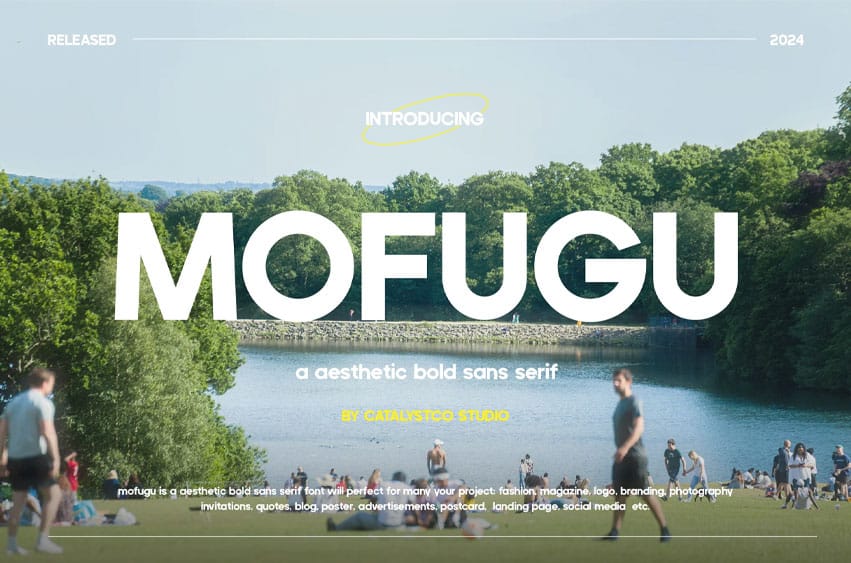
Mofugu Font Hendritage Modern Script Font typeface is excellent used for the manufacture of quote text, logotypes, header magazines, and many more.
- Ligatures & Alternate